You’ve got stunning destination photos, irresistible packages, and an agency reputation built on care. Yet your brochure still “feels flat.” The missing link? Travel Brochure Fonts that carry emotion, guide the eye, and translate curiosity into bookings. This guide shows designers, freelancers, and brand owners how to pick clean, bold, highly readable Travel Brochure Fonts—and exactly where to deploy them for maximum wanderlust (and conversion).
Travel is purchased with heart and justified with logic. Strong typography does both: it signals brand quality (trust), improves readability (clarity at a glance), and sets the mood (adventure, luxury, family-friendly). For a deeper primer on hierarchy, contrast, and white space, Google’s design hub has solid fundamentals worth revisiting in the Fonts Knowledge section—great for reinforcing why clean, consistent type choices outperform randomness in brochure systems (see Google Fonts Knowledge).
Pro tip: in travel print, readers skim. Use weight/size contrast to make package names, dates, and prices pop—then let body text stay calm and scannable.
Each pick is clean, bold, brochure-friendly, and available in the Figuree Studio catalog—ready for campaigns, maps, and fine-print alike.
Ignazio – Modern Sans Serif
Your go-to for body copy and price grids. Crisp shapes, great rhythm, and superb legibility across long itineraries.
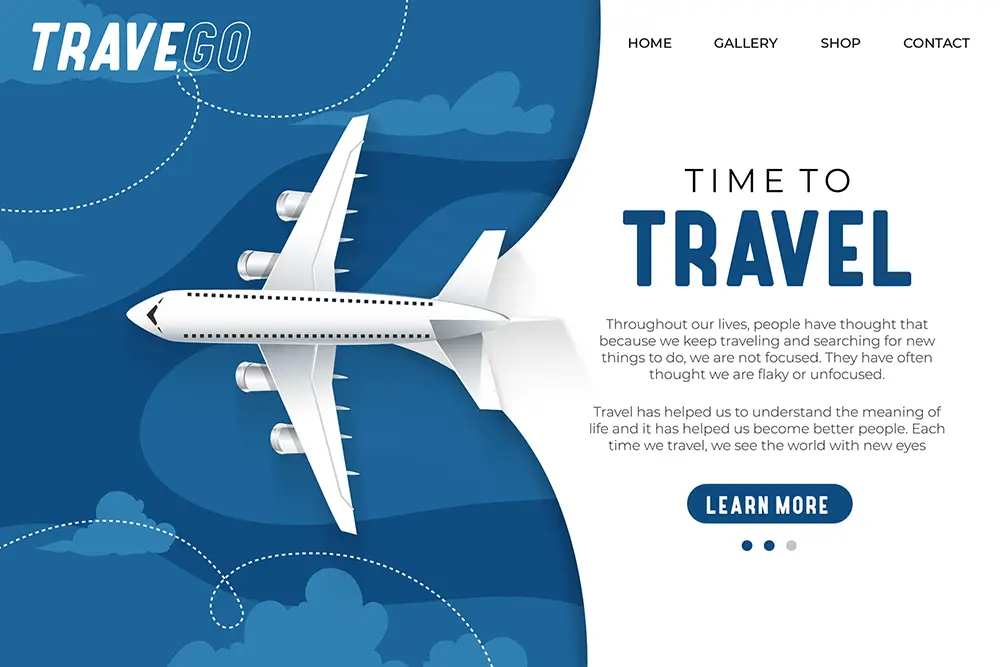
Bolde – Powerful Sans Serif
For front-cover headlines and “Early-Bird!” badges. Strong horizontals deliver authority without shouting.
Gued – Geometric Sans Serif
Future-ready minimalism for premium agencies. Use for section headers, map legends, and callouts.
Bordune – Condensed Sans Serif
Condensed width = more info per line. Perfect for departure tables, inclusions lists, and FAQs.
Keanon – Modern Expanded
Expanded elegance that whispers luxury cruises and 5-star escapes. Gorgeous for cover mastheads.
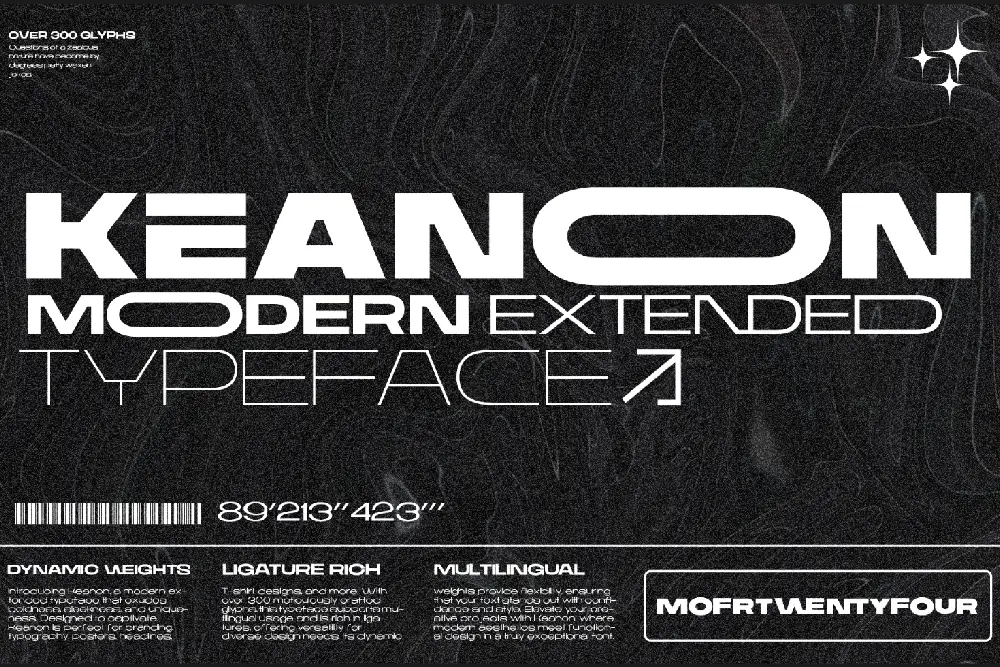
Bygen – Modern Display
Architectural and refined—great for hero numbers (7D6N), feature highlights, and modern destination spreads.
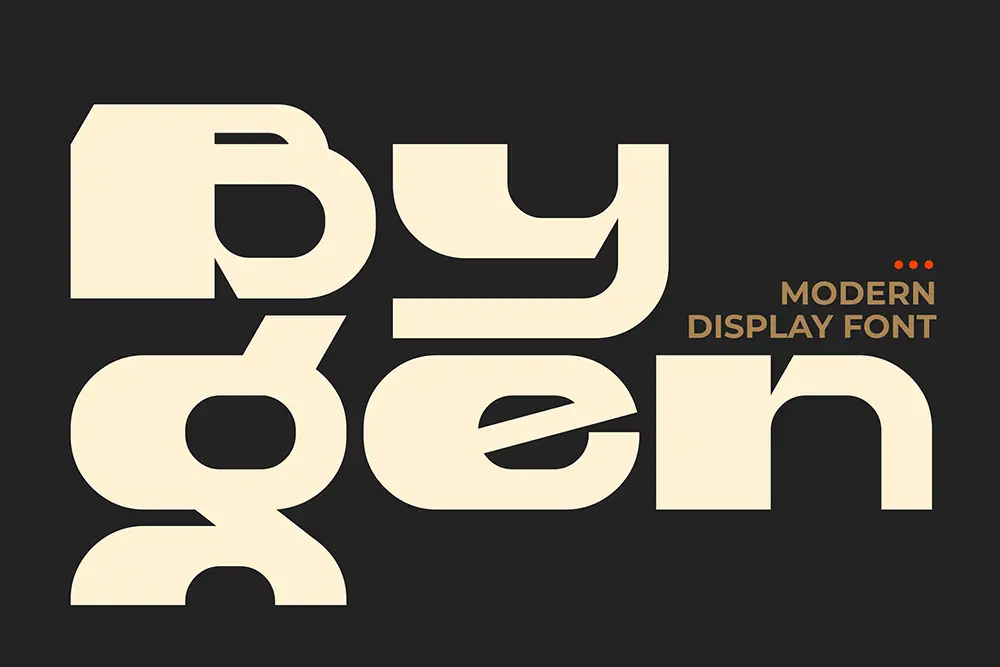
Traveliner – Energetic Racing Font
Motion in letterform. Use sparingly for action-led adventures—safari, overland, or road-trip editions.
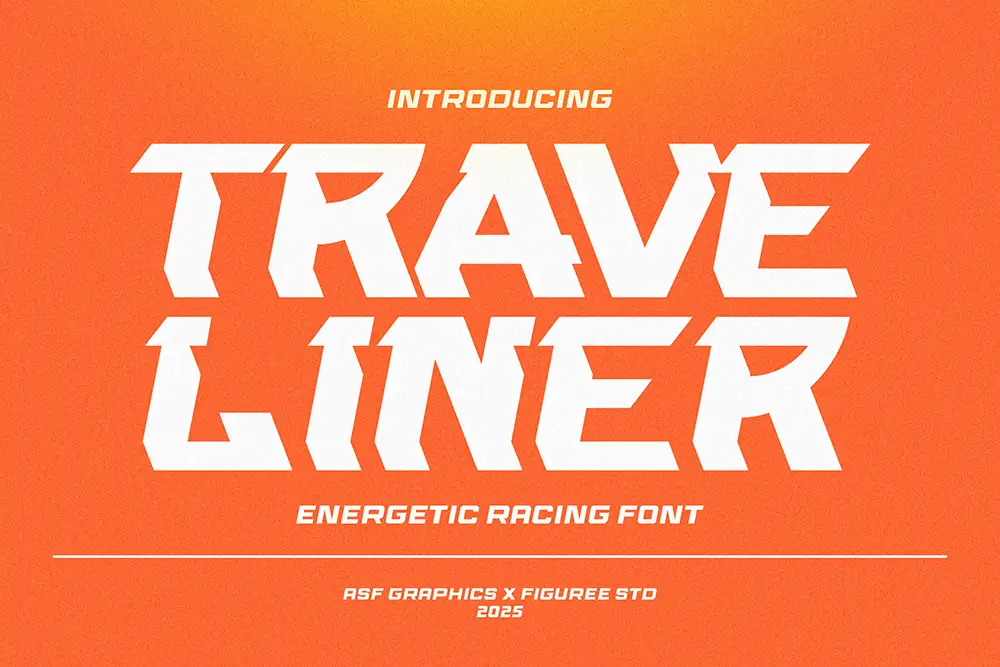
Quinoss – Modern Sport Font
Strong, agile forms for adrenaline itineraries: hiking, rafting, ski weekends. Ideal for dynamic pull quotes.
Graphiel – Modern Bold Script
Bold yet human—Graphiel brings a handcrafted warmth that suits boutique travel agencies and lifestyle tours. Use it for taglines or subhead highlights to evoke authenticity and connection.
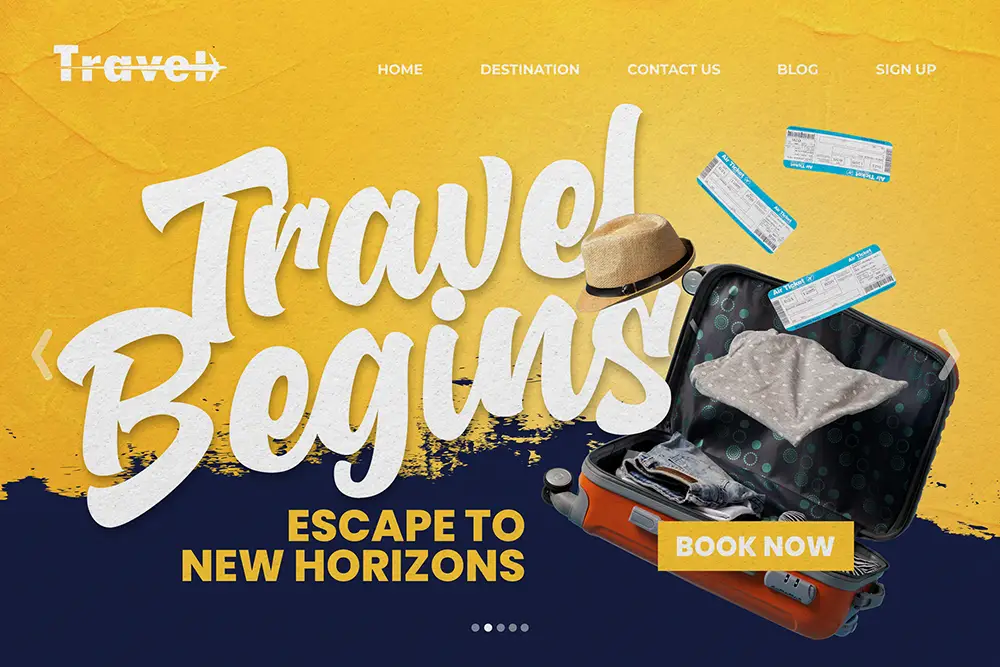
Hareva – Sleek Retro Sans
Sleek and versatile, Hareva balances retro charm with professional clarity. Great for CTAs like “Book Now” or “Limited Seats,” giving a smooth, modern finish to your layouts.
Pairing recipes (plug-and-play)
Great type is strategy, not decoration. The right Travel Brochure Fonts clarify choices, compress complexity, and create momentum toward booking.
“People do not buy goods and services. They buy relations, stories, and magic.” — Seth Godin
Our take: your brochure is a portable story. Headlines create the scene, subheads create the path, and body copy removes the friction. When fonts align with that journey, conversions rise because readers feel guided, not pressured.
Use Travel Brochure Fonts that look like momentum—type that welcomes the eye, clarifies choices, and nudges action. Don’t let uncertainty stall your campaign.